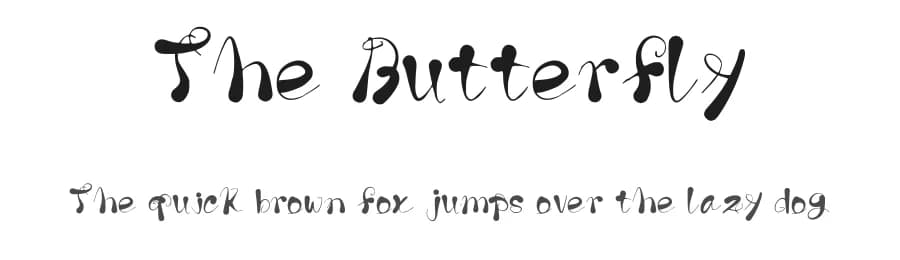
About The Butterfly Font
The Butterfly Specifications
The Butterfly supports 104 languages.
The Butterfly Font is a script font that shines as a display or heading face. Pair it with a clean sans-serif or serif font for body text β the contrast creates a clear hierarchy while the two styles stay balanced and easy to read.
The Butterfly Font
by Golder Jagat